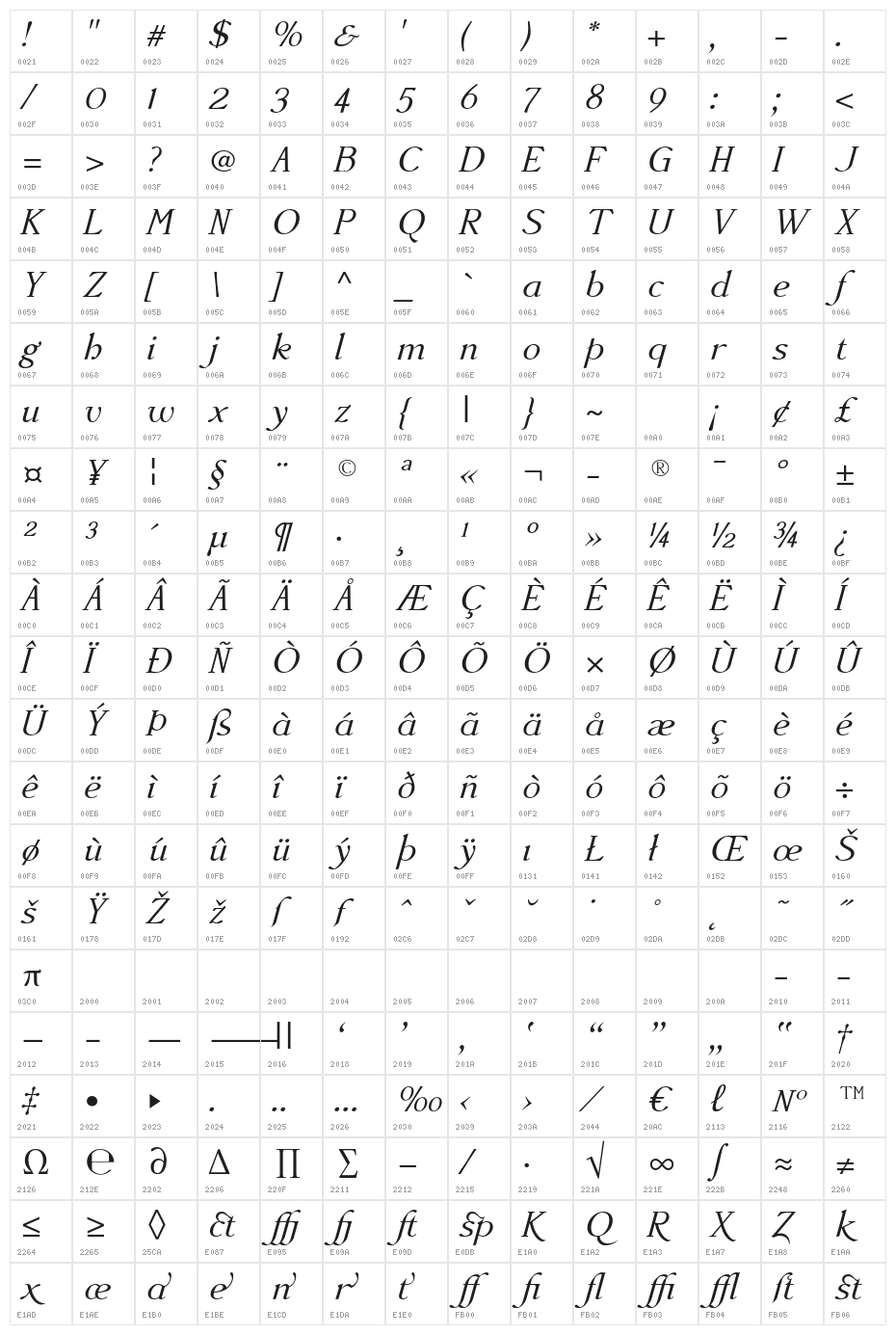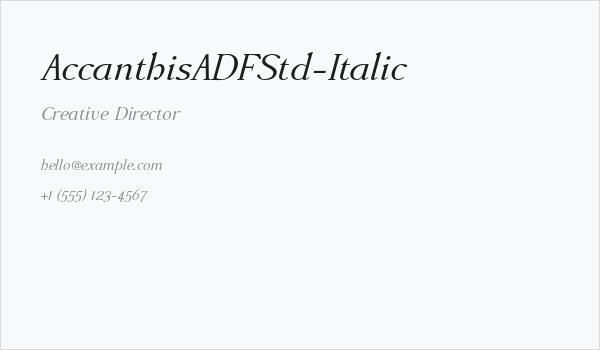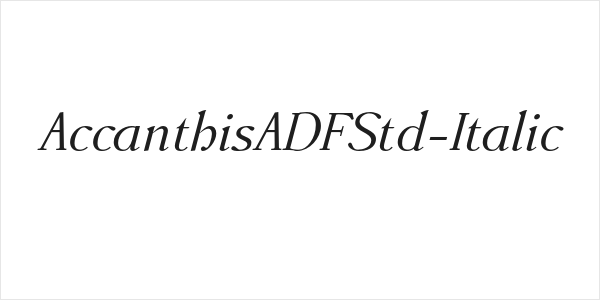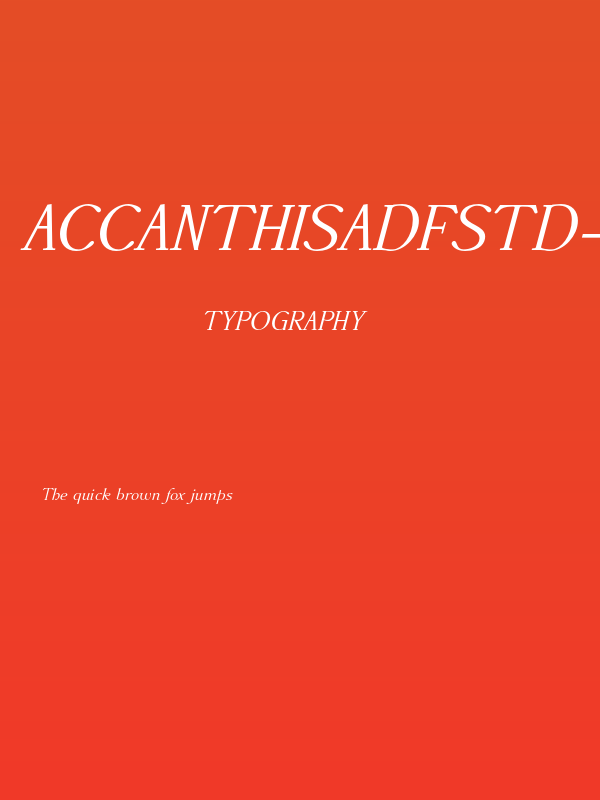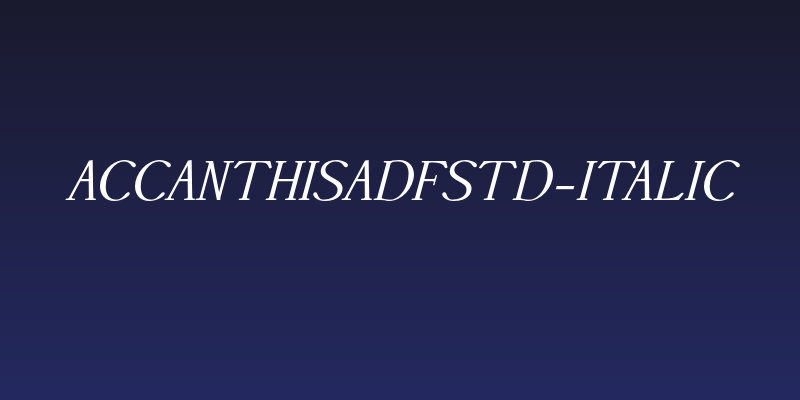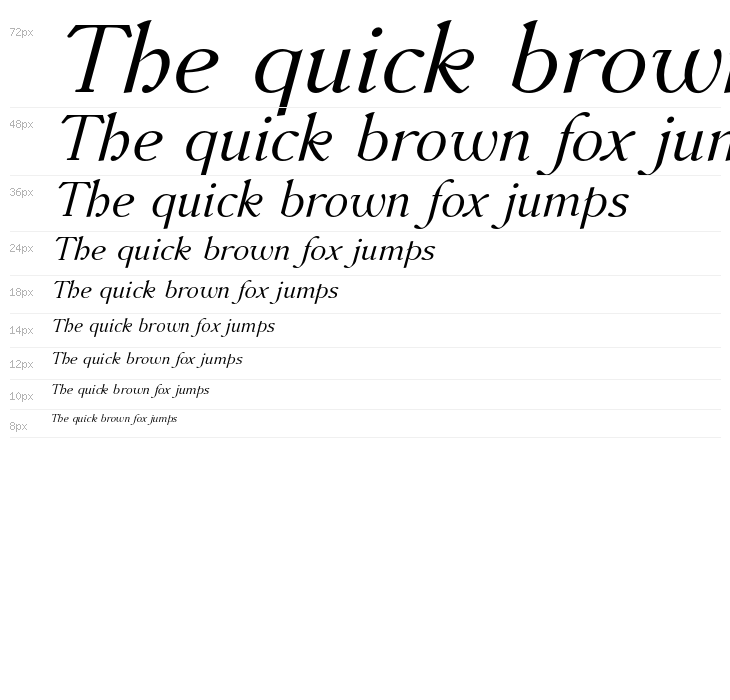
AccanthisADFStd-Italic Font
AccanthisADFStd-Italic Description
This elegant serif typeface features a classic italic style, characterized by its smooth, flowing lines and moderate contrast between thick and thin strokes. The letters have a slight slant, enhancing the traditional aesthetic while maintaining readability. The uppercase letters are stately and well-proportioned, while the lowercase letters exhibit a graceful, cursive-like quality. The numerals are clear and consistent with the overall style, and the special characters are designed to complement the alphabet with a cohesive look. This font exudes a timeless sophistication, making it suitable for a variety of formal and creative applications.
| Proposed Projects | Ideal for formal invitations, elegant branding, editorial design, and classic book covers. |